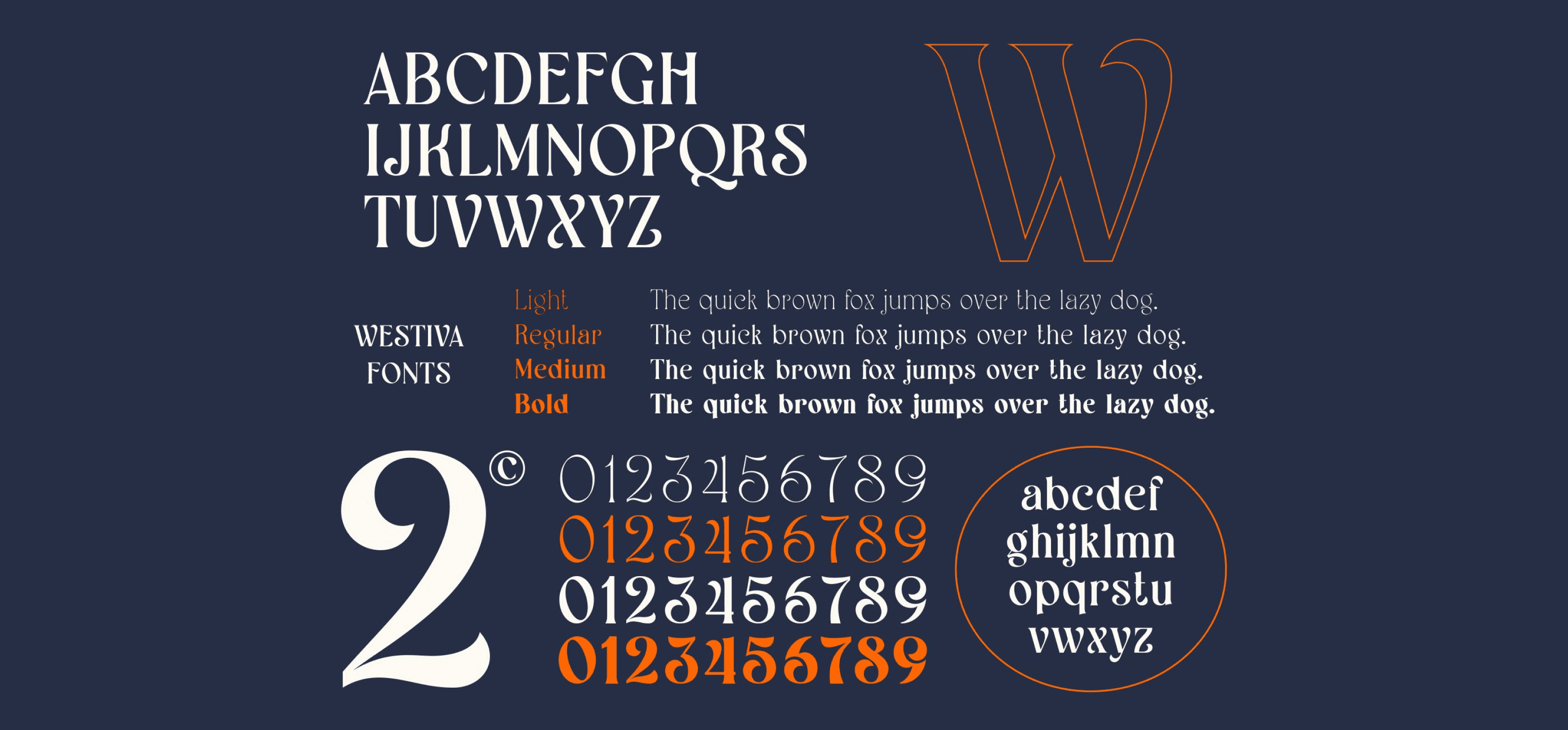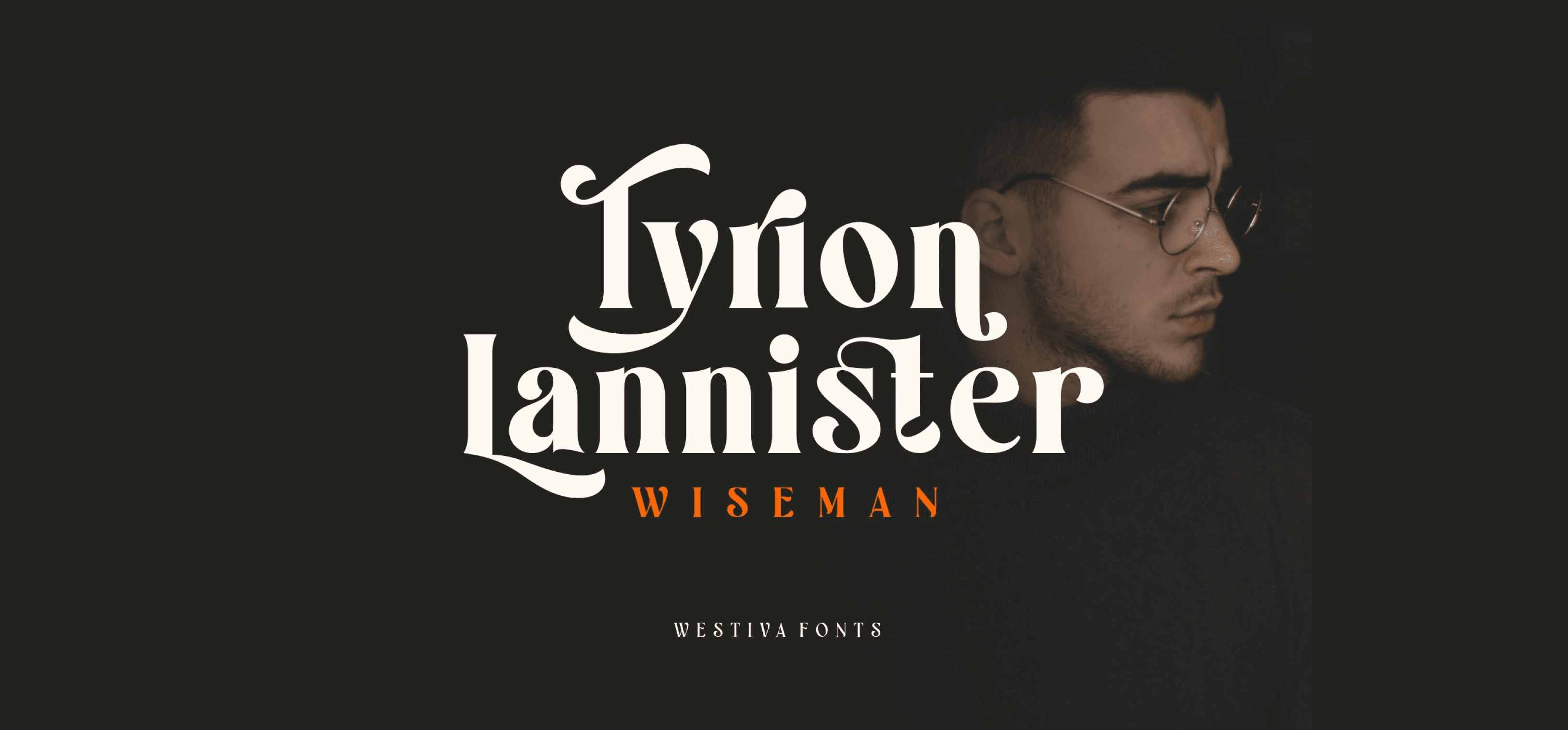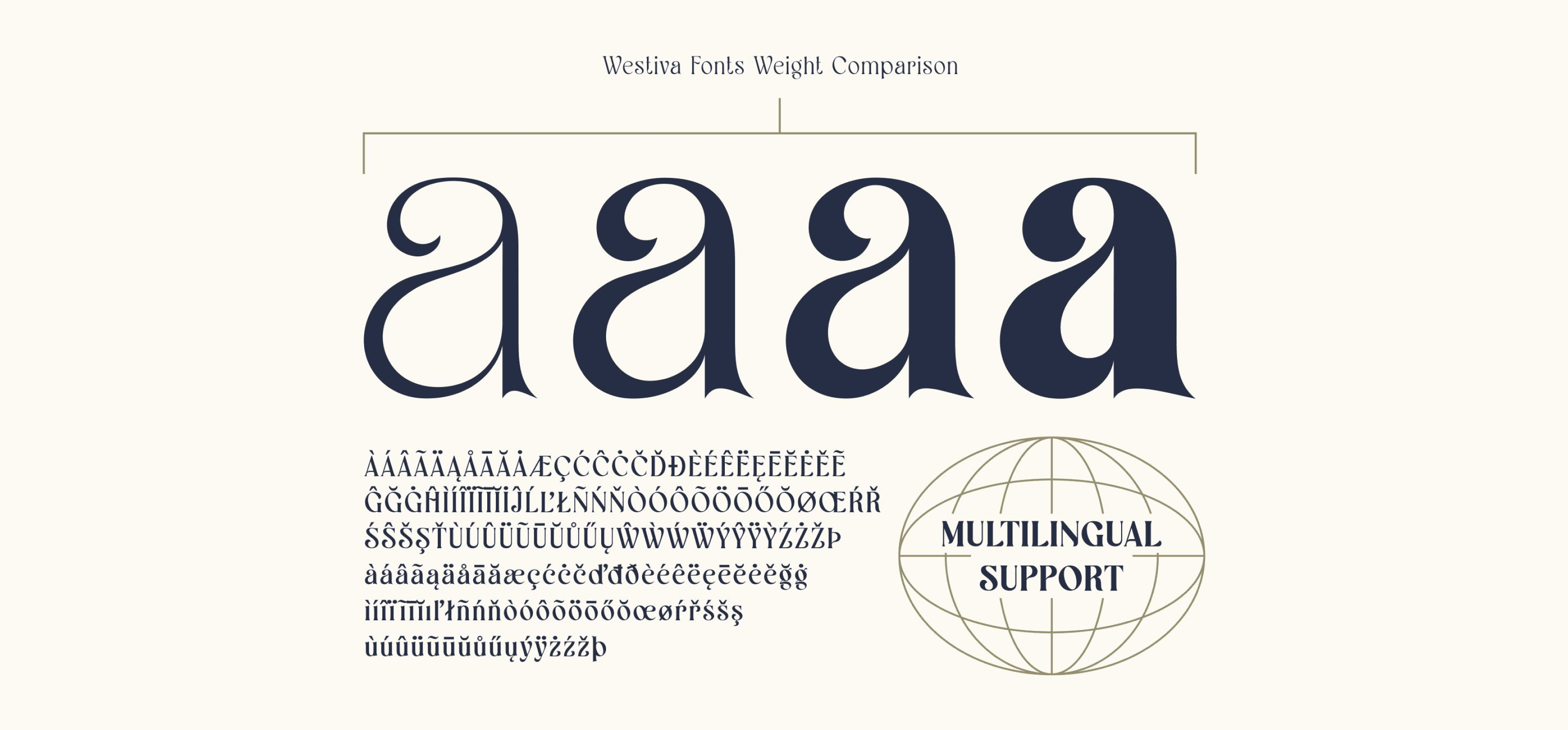
Westiva is a serif font family with an elegant and classy look. Each Westiva glyph font is designed with natural and beautiful curves. Westiva Typography can help you complete various projects such as luxury brand logos, journals, business cards, titles, products, social media posts, web and much more. If you're involved in a project that requires beautiful and professional writing, the Westiva font is perfect to help you get it done.